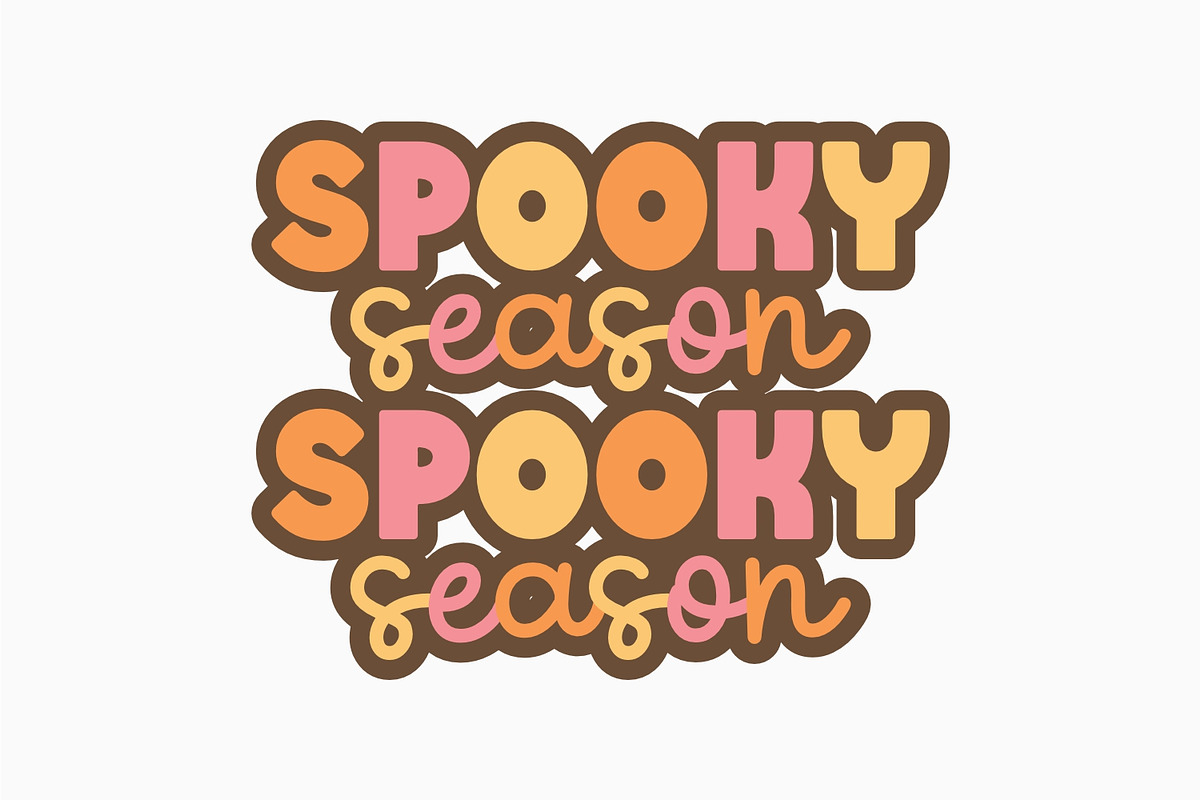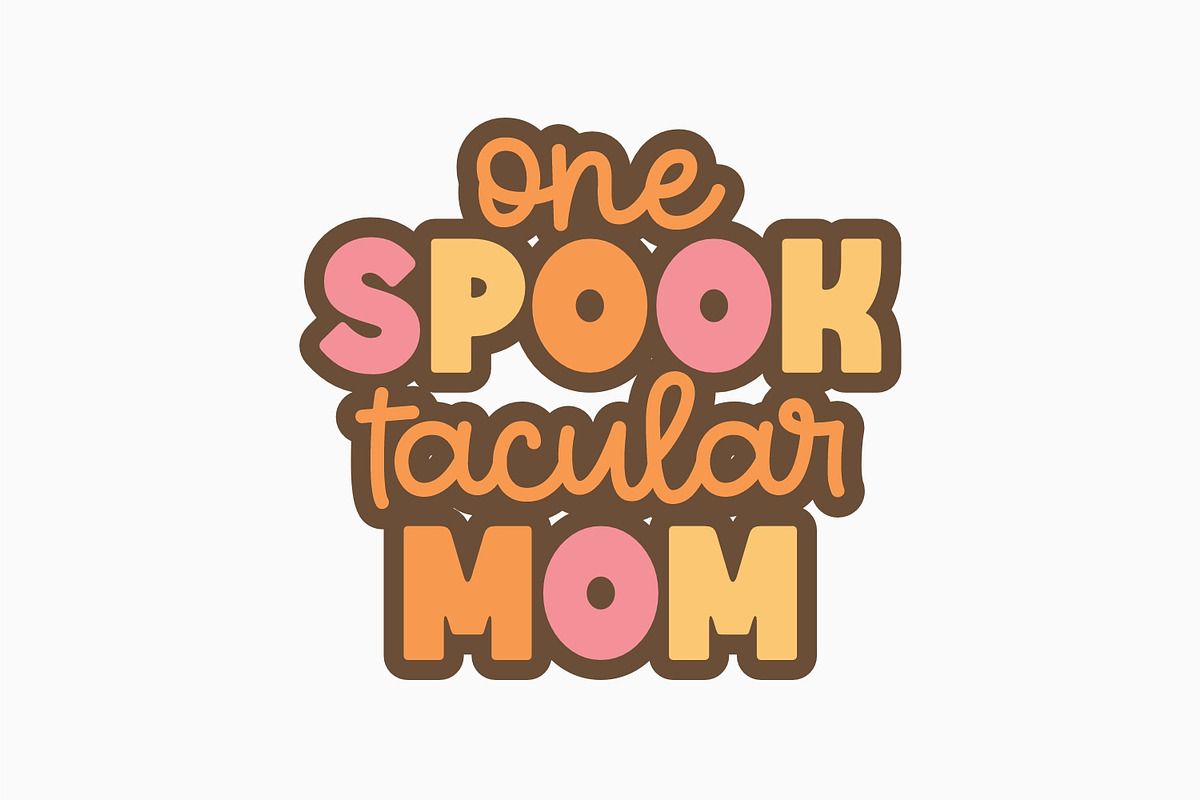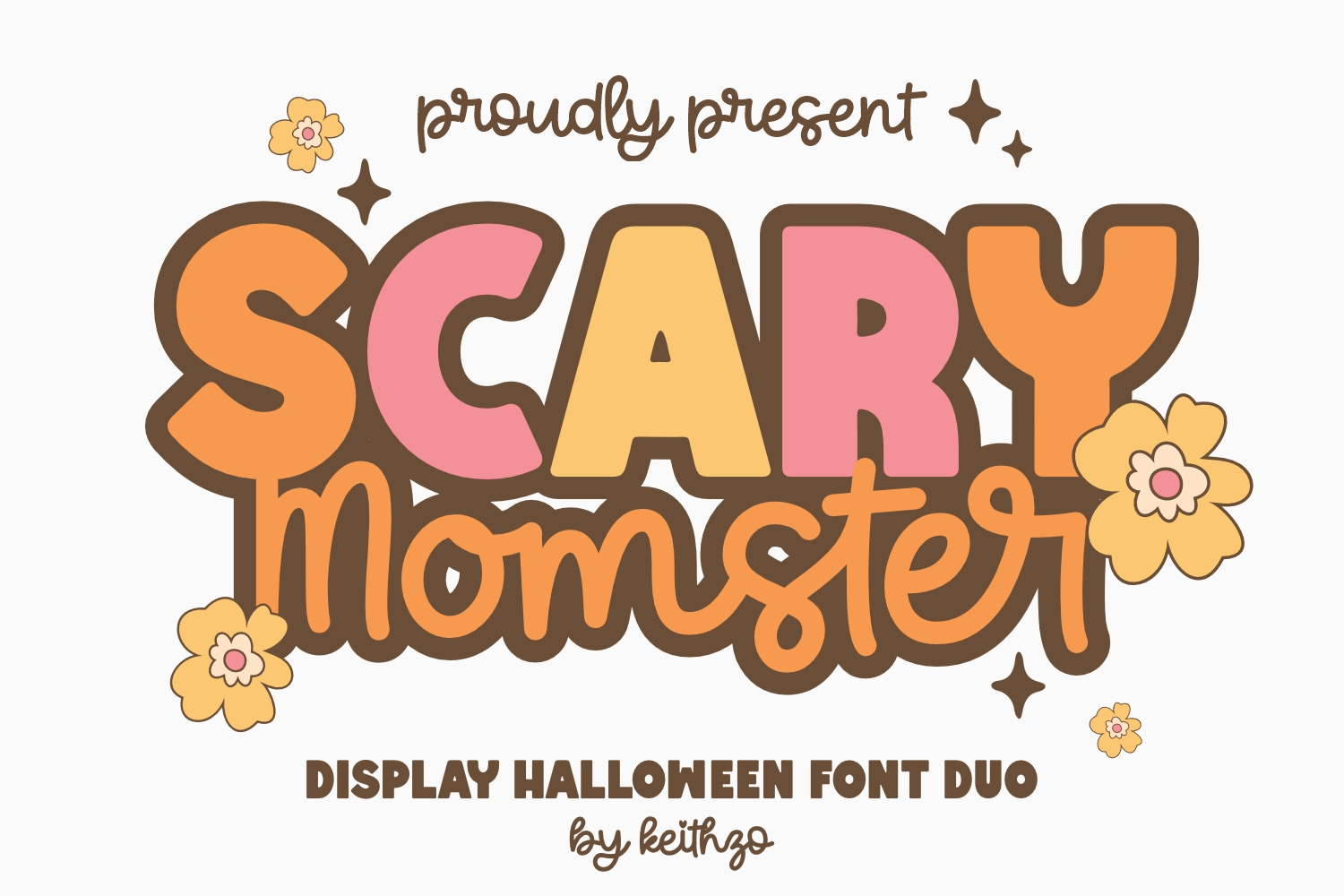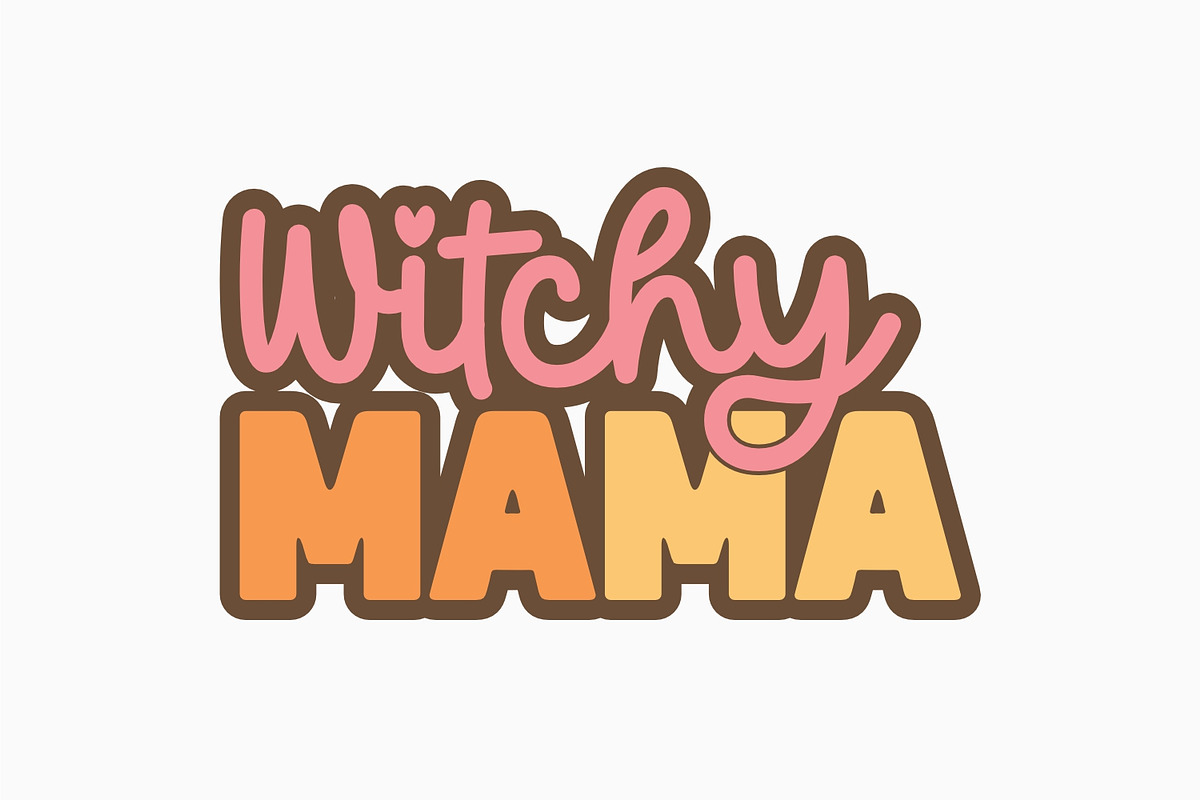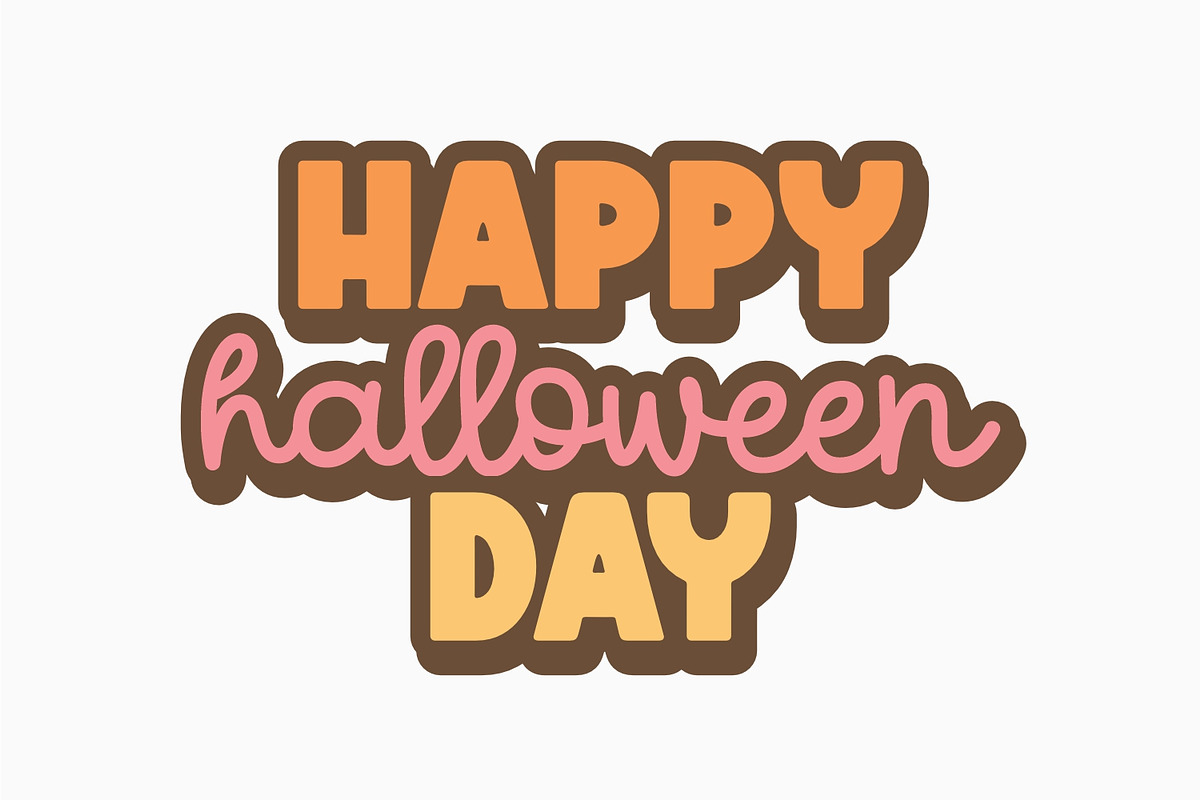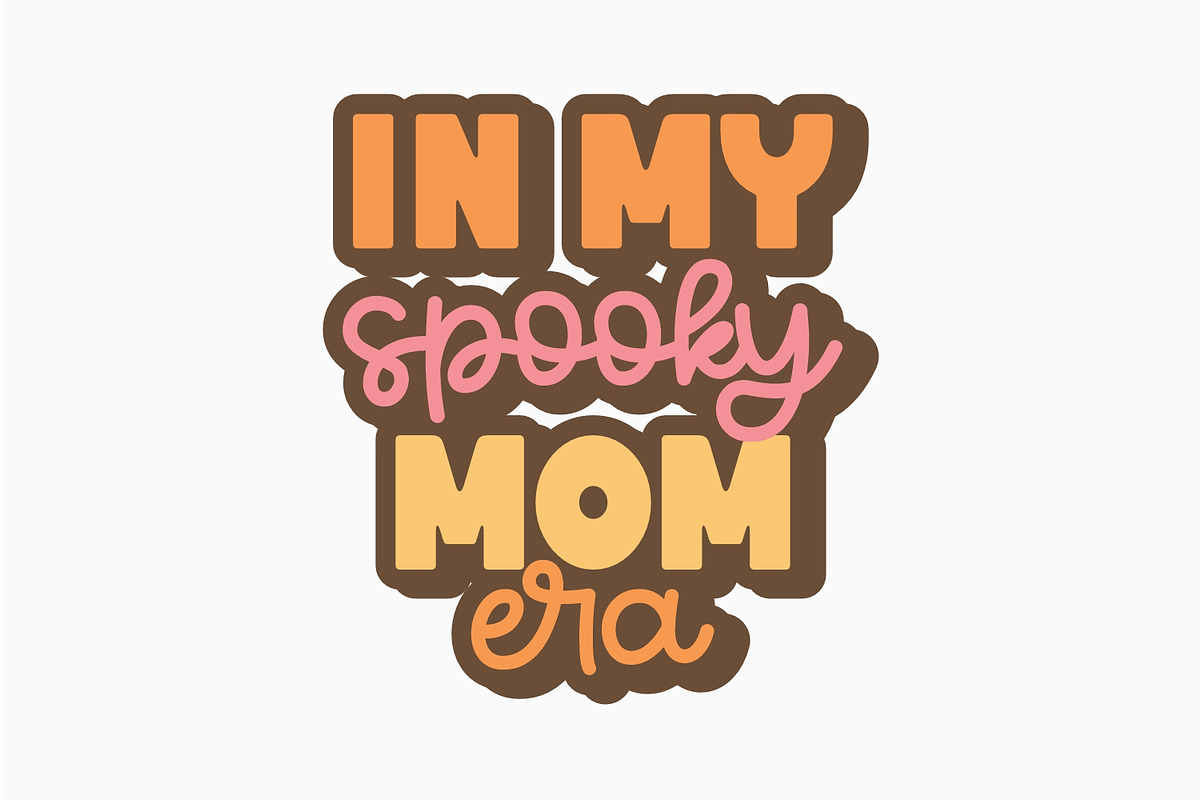
Scary Momster - Halloween Font Duo
Introducing ‘Scary Momster,’ the choice duo-font for all your spooky season needs! With its meticulously crafted, bold display style, paired harmoniously with playful and animation-evoking handwriting, Scary Momster infuses the ghostly thrill of Halloween into every keystroke. Its use isn’t confined only to the realm of the supernatural; it’s perfect for a wide array of applications. Be it emblazoning catchy slogans on logos, making headlines pop with an amusing undertone, or adding that bit of whimsical flair to banners, this font duo does it all. Experience the enchanting versatility of Scary Momster on greeting cards, effortlessly reflecting the spirit of jovial jest in its duality. Moreover, it’s fantastic for adding a touch of fiendish fun to t-shirts, accessories, stickers and handicrafts. Embrace the eerie elegance of Scary Momster, the font that celebrates Halloween every day!